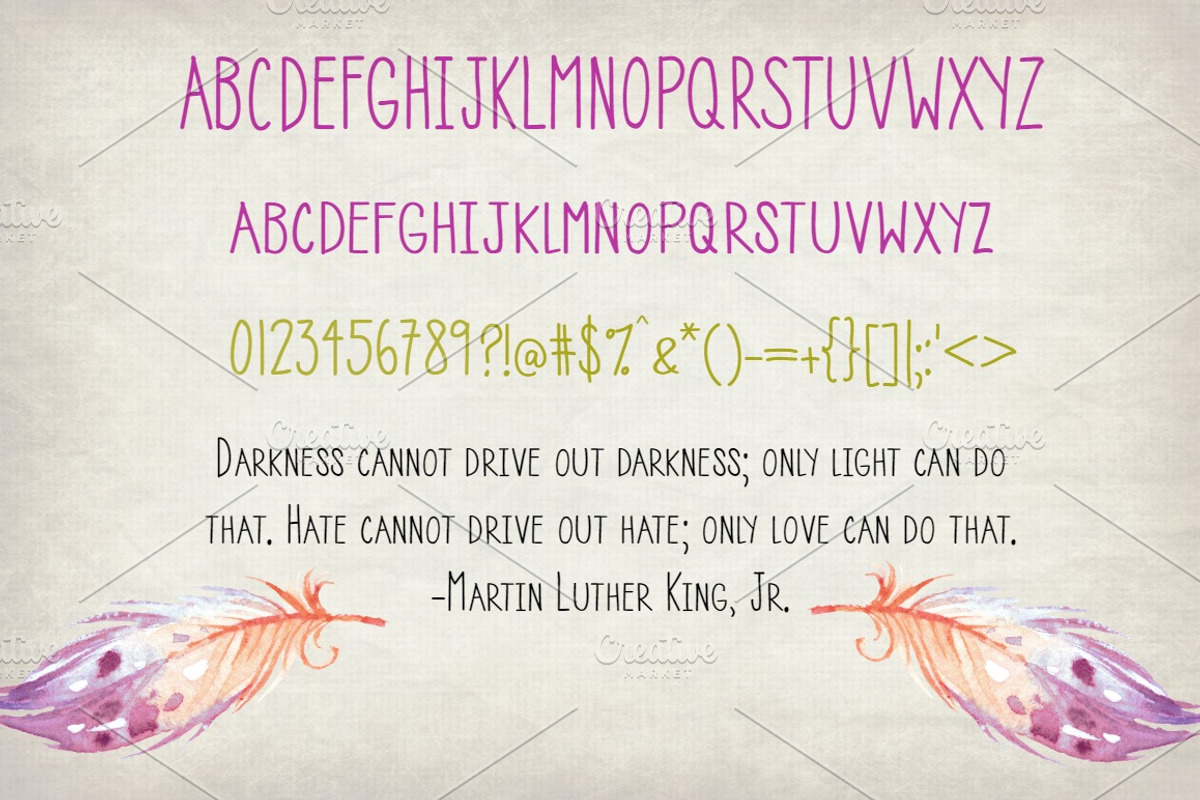
Wildflower Caps- Handwritten Font
Wildflower Caps- Handwritten Font by Sabrina Schleiger Design is a font selected for branding, posters, packaging, typography.
- Wildflower Caps is a modified version of my "Fields of Wildflowers" font that features all capital letters and includes Latin extensions to
Why Wildflower Caps- Handwritten Font is worth a look
Wildflower Caps- Handwritten Font by Sabrina Schleiger Design fits naturally into Branding, posters, packaging, typography.